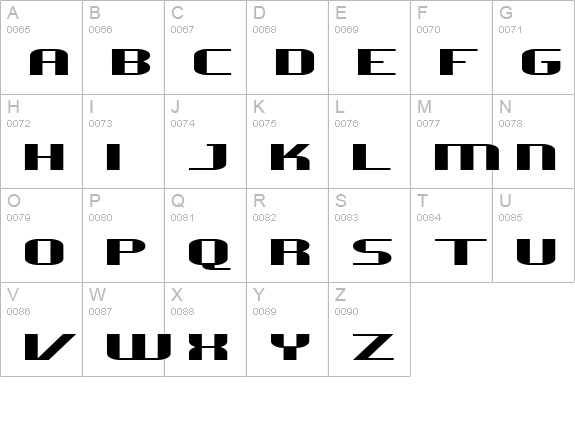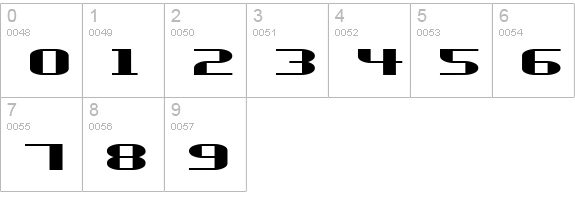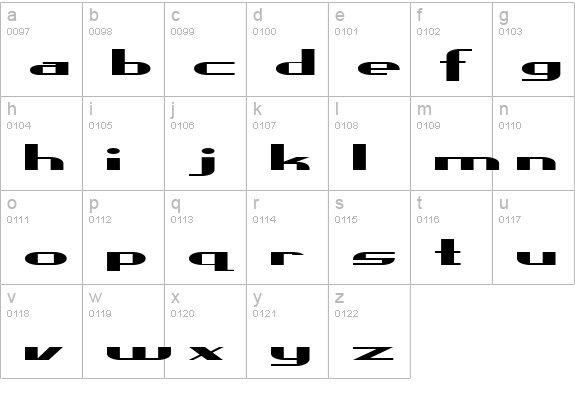
ureka Font Details
Introducing Ureka Font, a captivating and versatile typeface that is bound to elevate your design projects to new heights. With its sleek and modern aesthetics, Ureka Font is perfect for a wide range of creative applications, from branding and advertising to web design and print media. Crafted with precision and attention to detail, this font boasts a harmonious balance between elegance and readability. Its clean and crisp lines exude a sense of professionalism and sophistication, making it an ideal choice for corporate identities, logos, and business cards. Ureka Font offers a vast array of characters, including uppercase and lowercase letters, numerals, punctuation marks, and special symbols, allowing you to effortlessly convey your message with clarity and style. Additionally, it supports multiple languages, making it suitable for global communication. But what truly sets Ureka Font apart is its accessibility. We believe that creativity should be unrestricted, which is why Ureka Font is available for free download at FontsMarket.com. This means that you can enjoy the full potential of this remarkable typeface without any financial burden. Whether you are a seasoned graphic designer or a novice exploring the world of typography, Ureka Font is here to provide you with a seamless and enjoyable experience. So why wait? Unleash your creativity and make your designs shine with Ureka Font - the perfect fusion of style, professionalism, and accessibility.